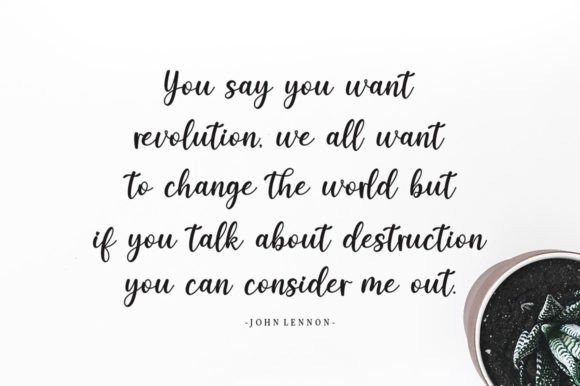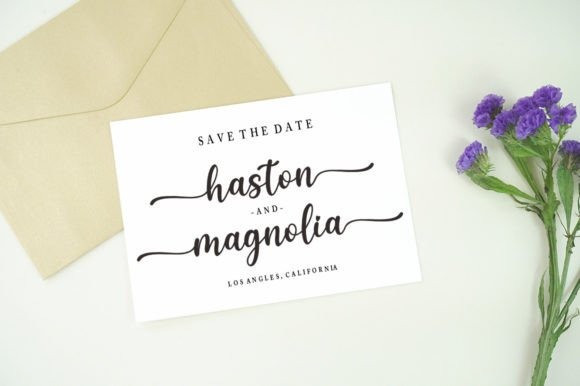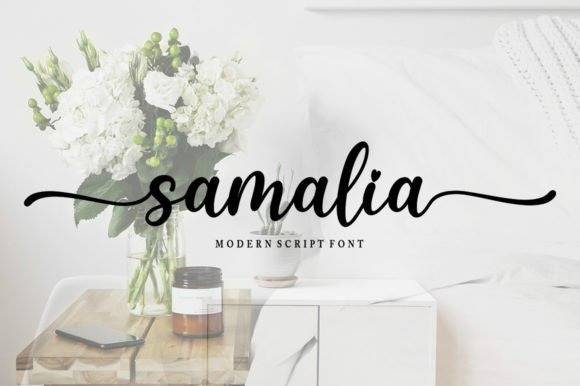
Samalia Font
Samalia Script Font feels equally charming and elegant. It looks stunning on wedding invitations, thank you cards, quotes, greeting cards, logos, business cards, and every other design which needs a handwritten touch.